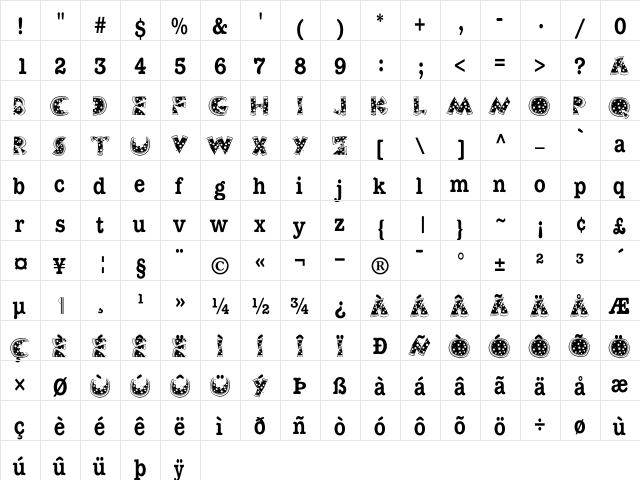
KAPizza Regular Font Preview
KAPizza Regular
Design Context for KAPizza Typeface
KAPizza is a composed and adaptable typeface that performs quietly and consistently across a wide range of design contexts.